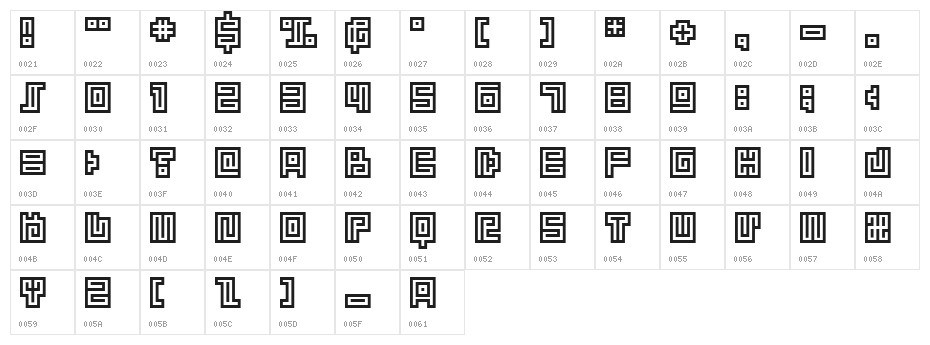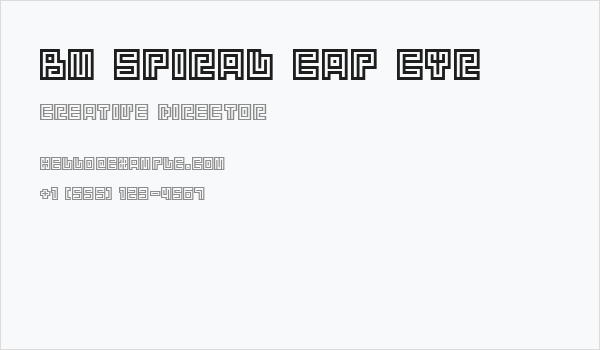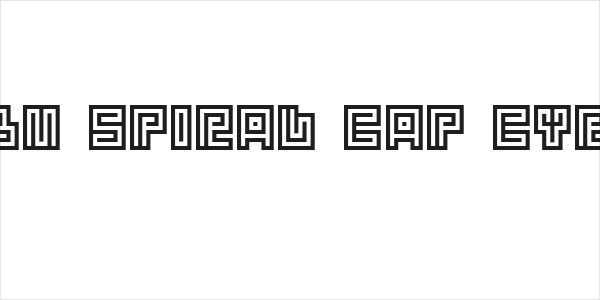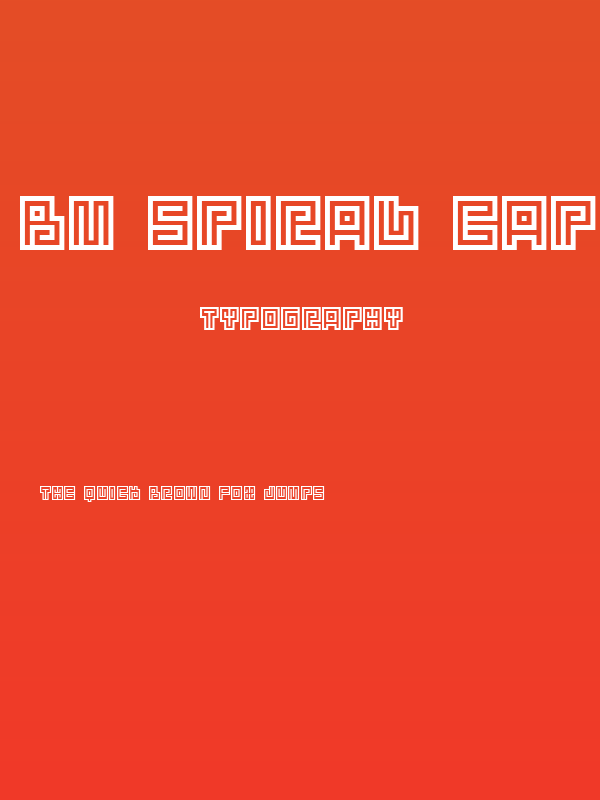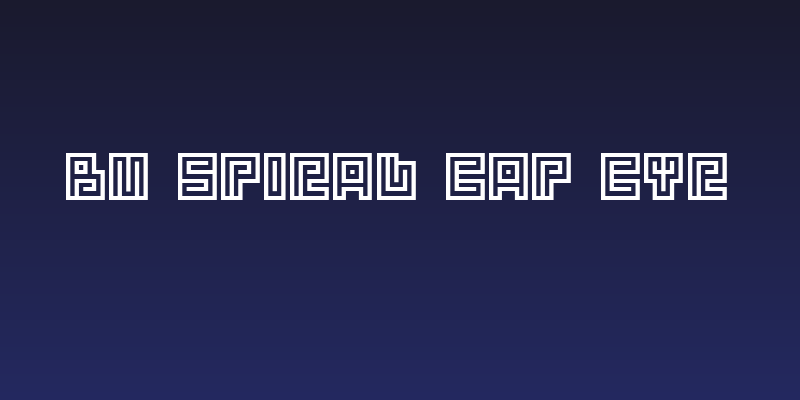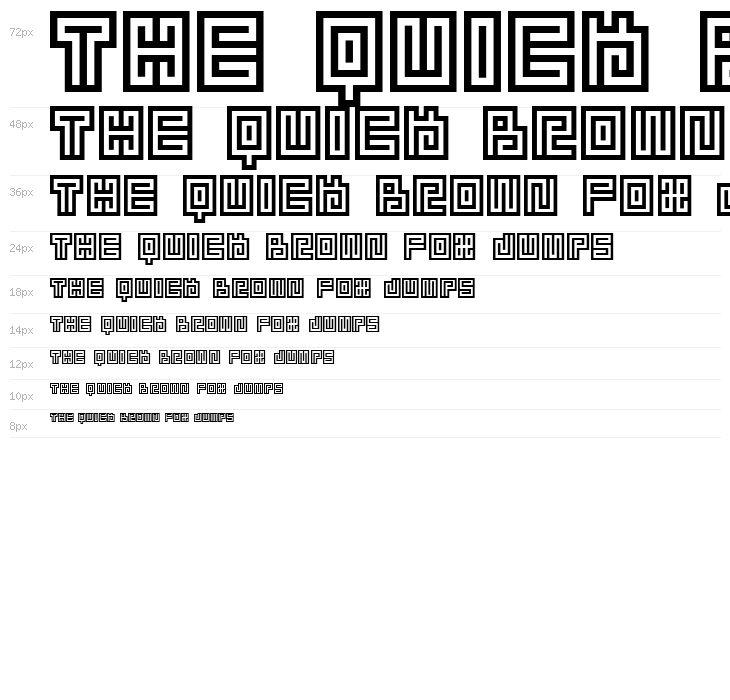
BM spiral Cap Cyr Font
BM spiral Cap Cyr Description
This font features a unique, geometric design with a maze-like appearance. Each character is constructed with bold, interconnected lines forming a square spiral pattern. The uppercase and lowercase letters maintain a consistent style, emphasizing symmetry and structure. Numbers and special characters follow the same intricate design, ensuring a cohesive look across all glyphs. The font's distinct style makes it stand out, ideal for creative and modern projects that require a bold statement.
| Proposed Projects | Ideal for futuristic designs, tech branding, video game titles, and modern posters. |